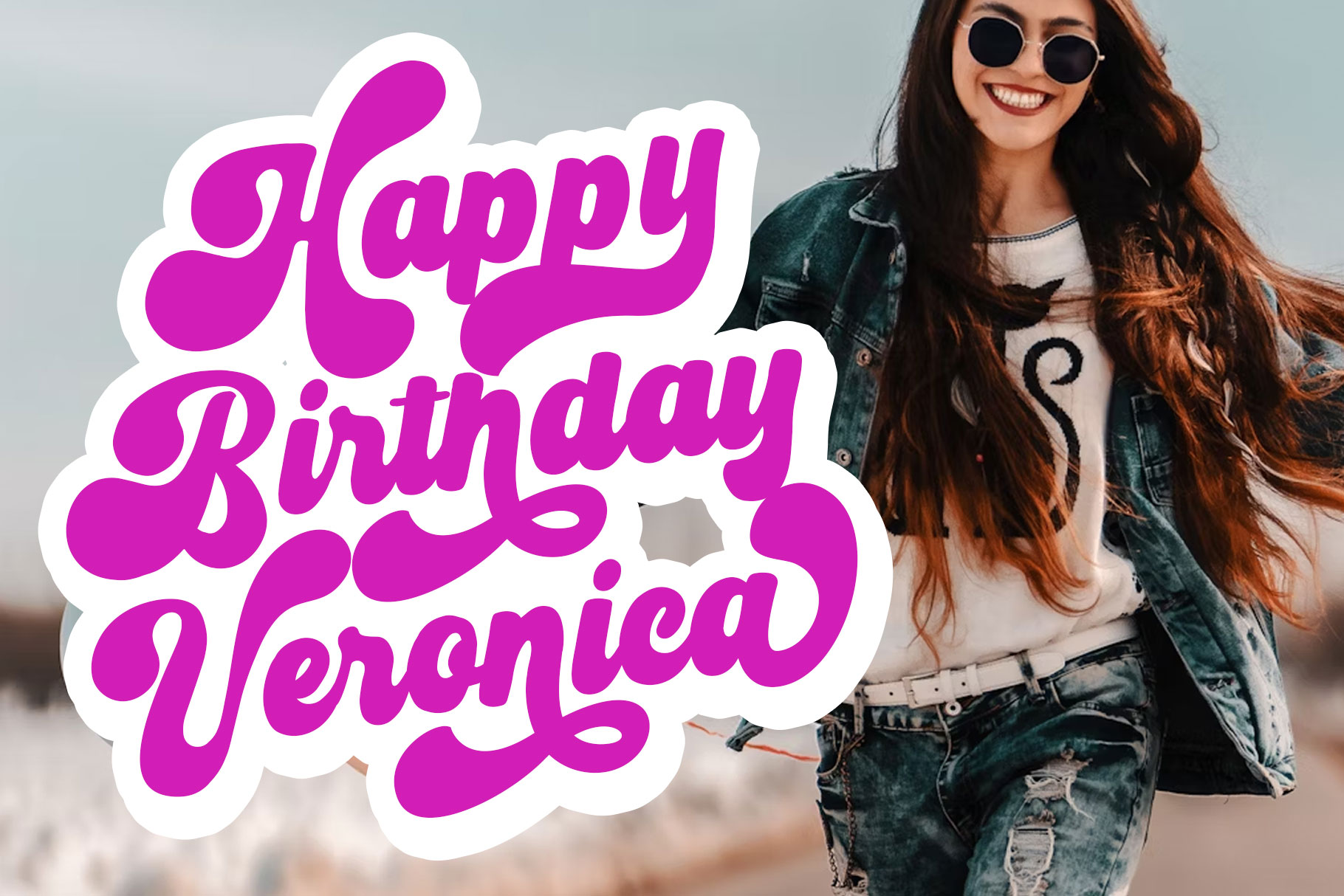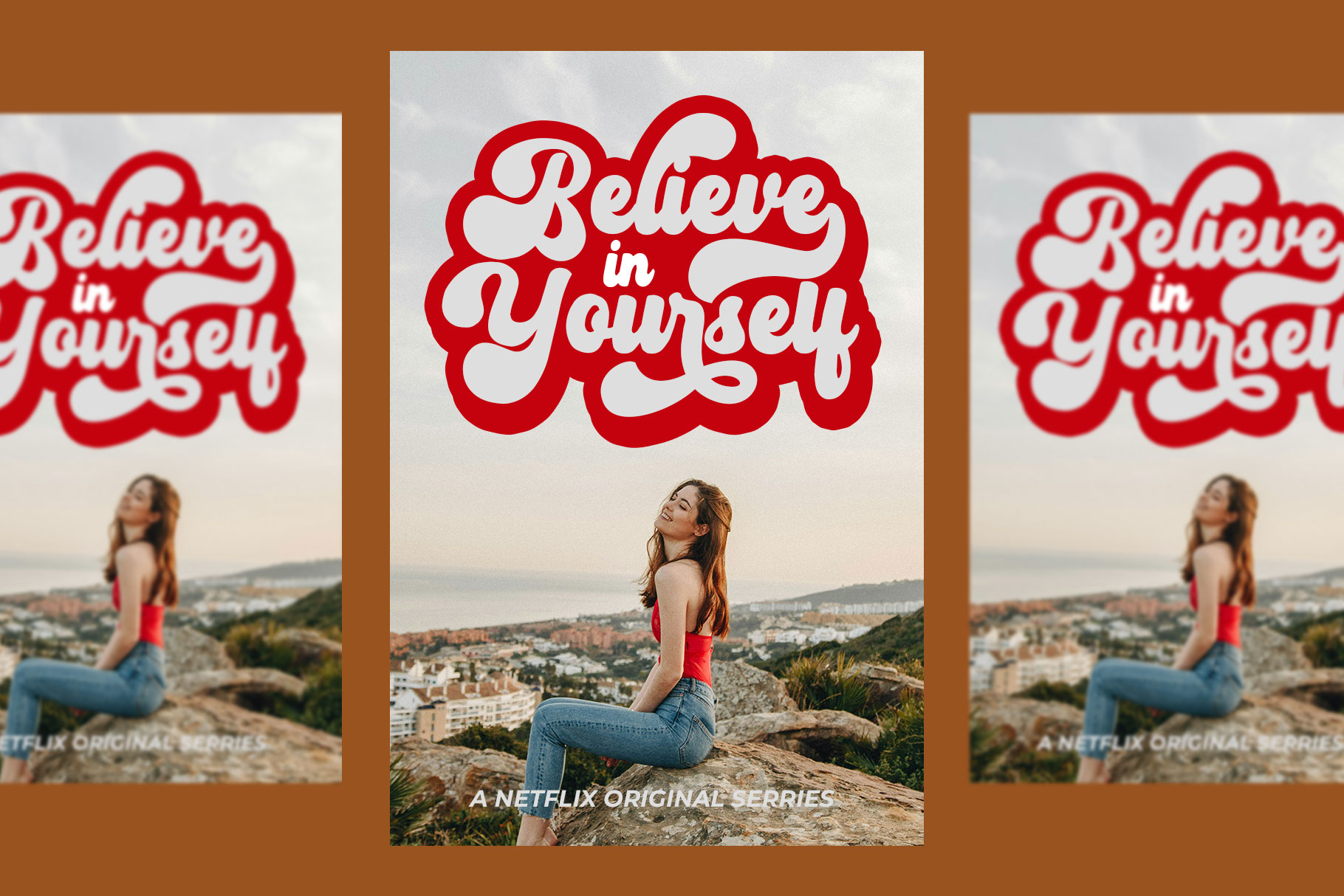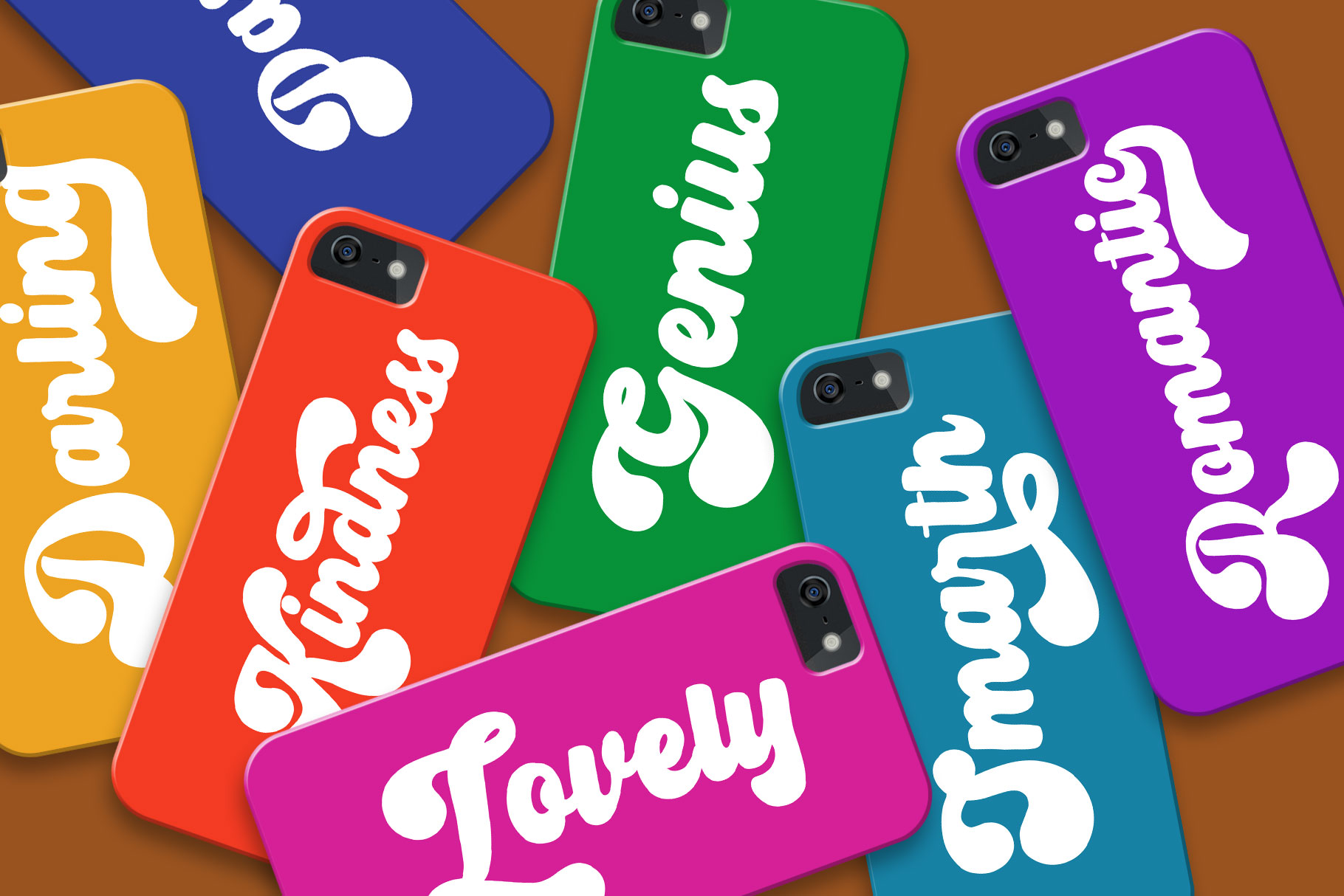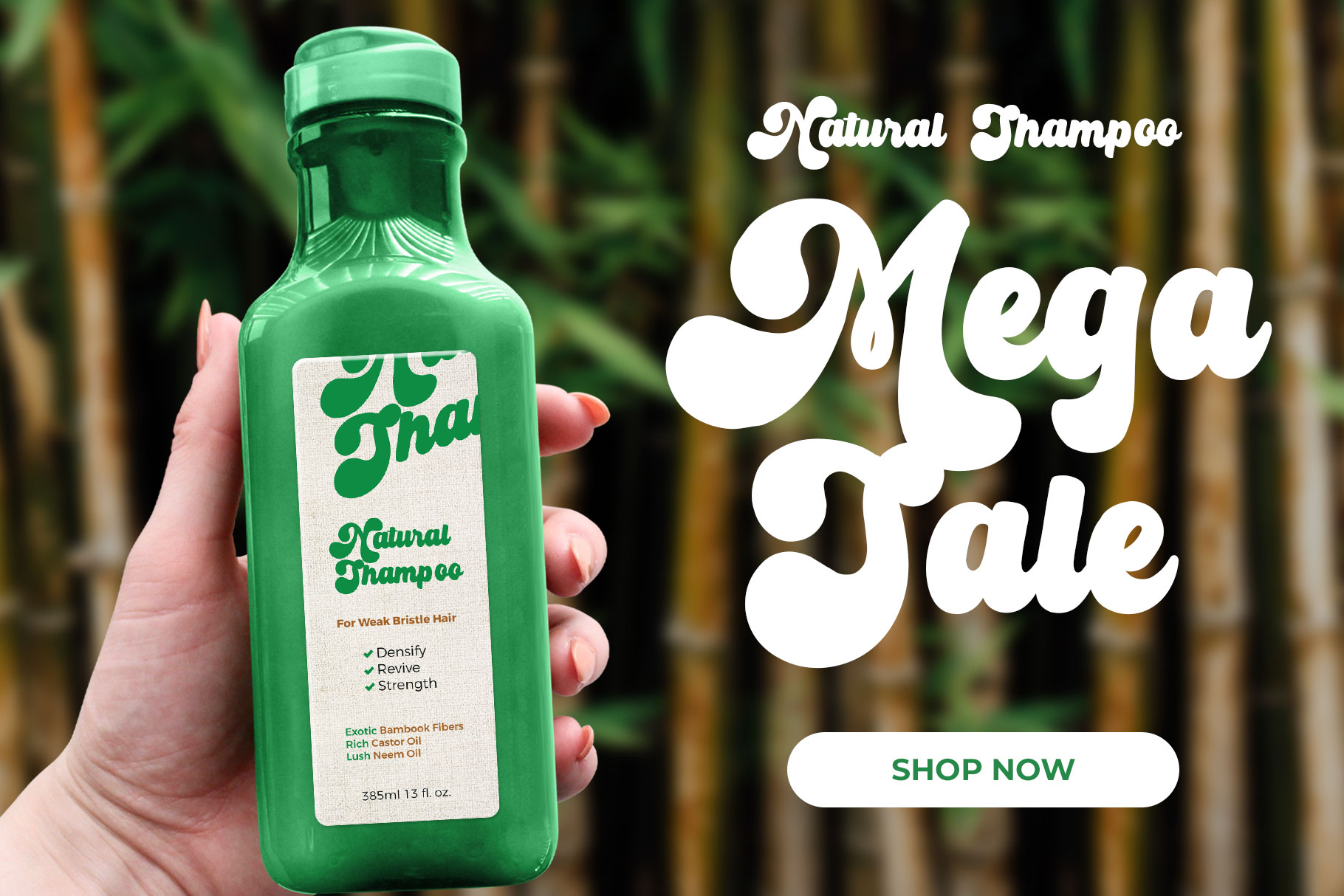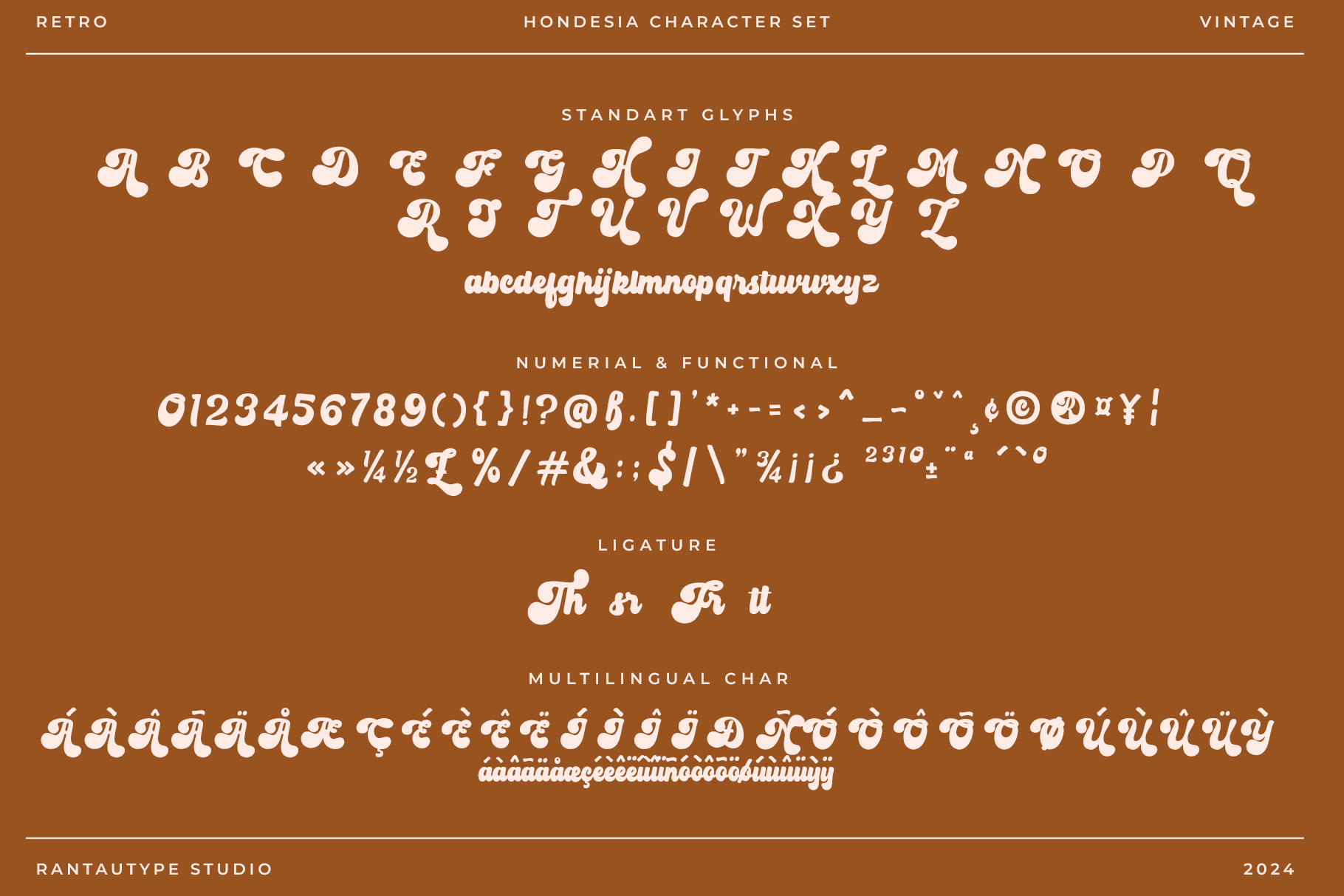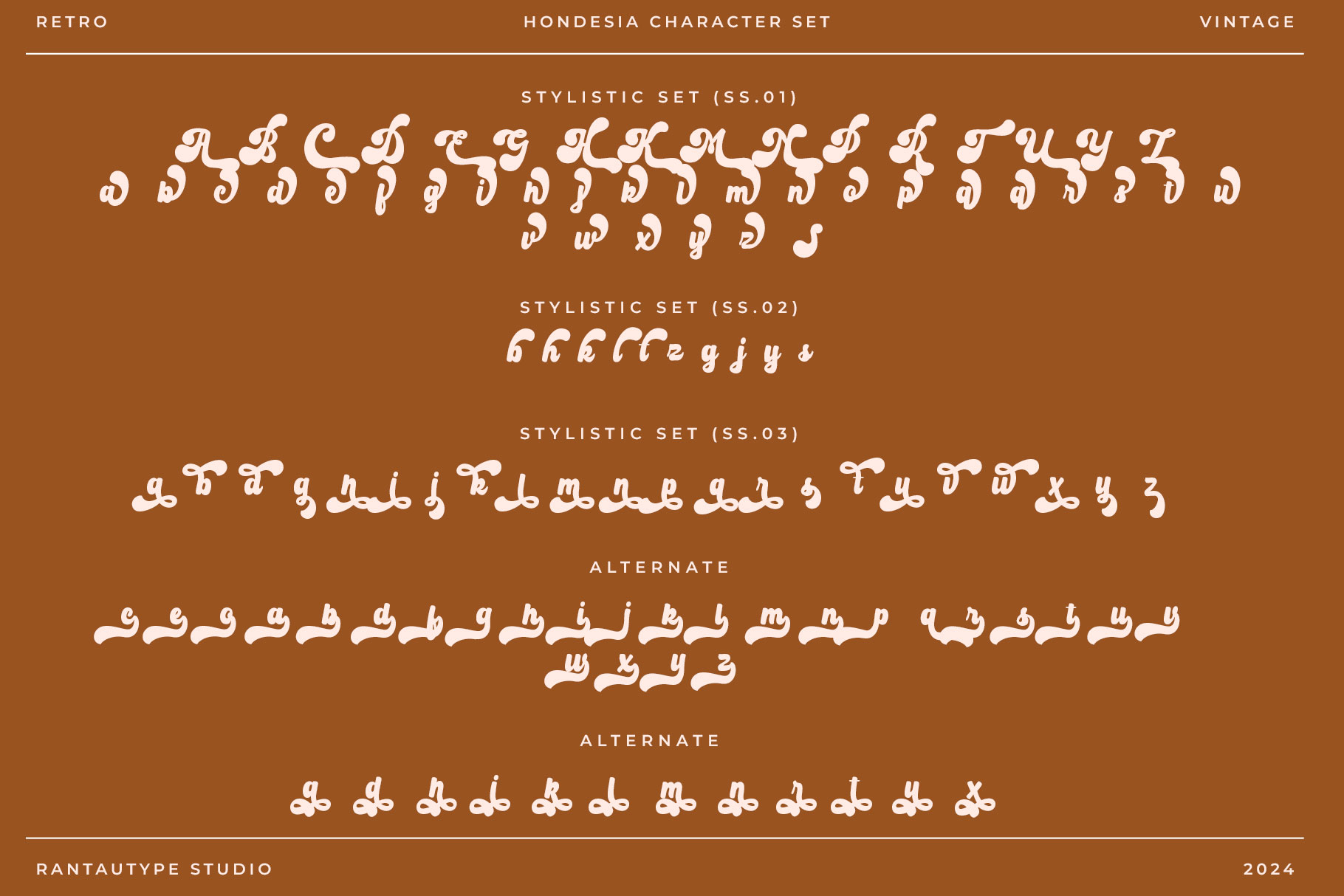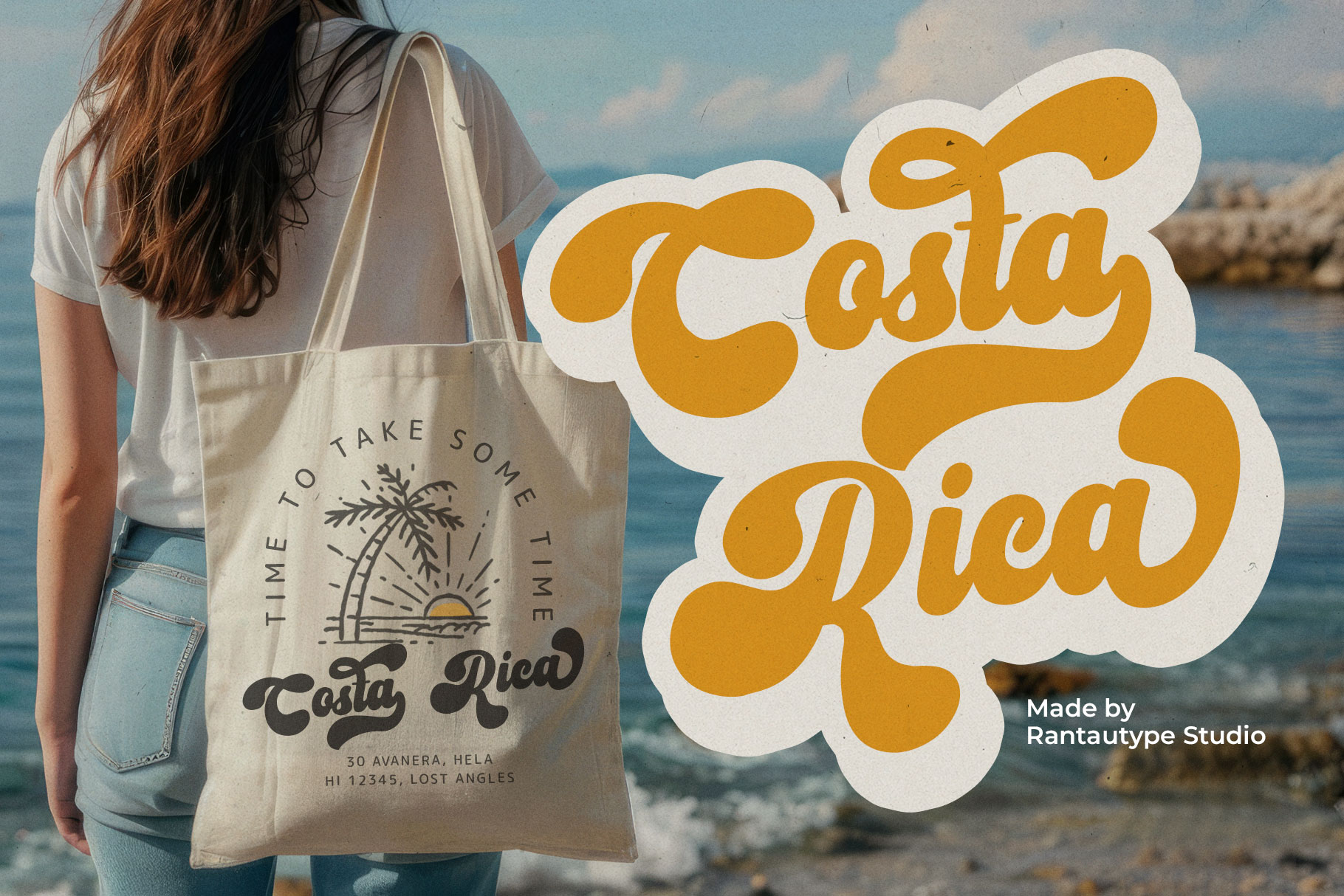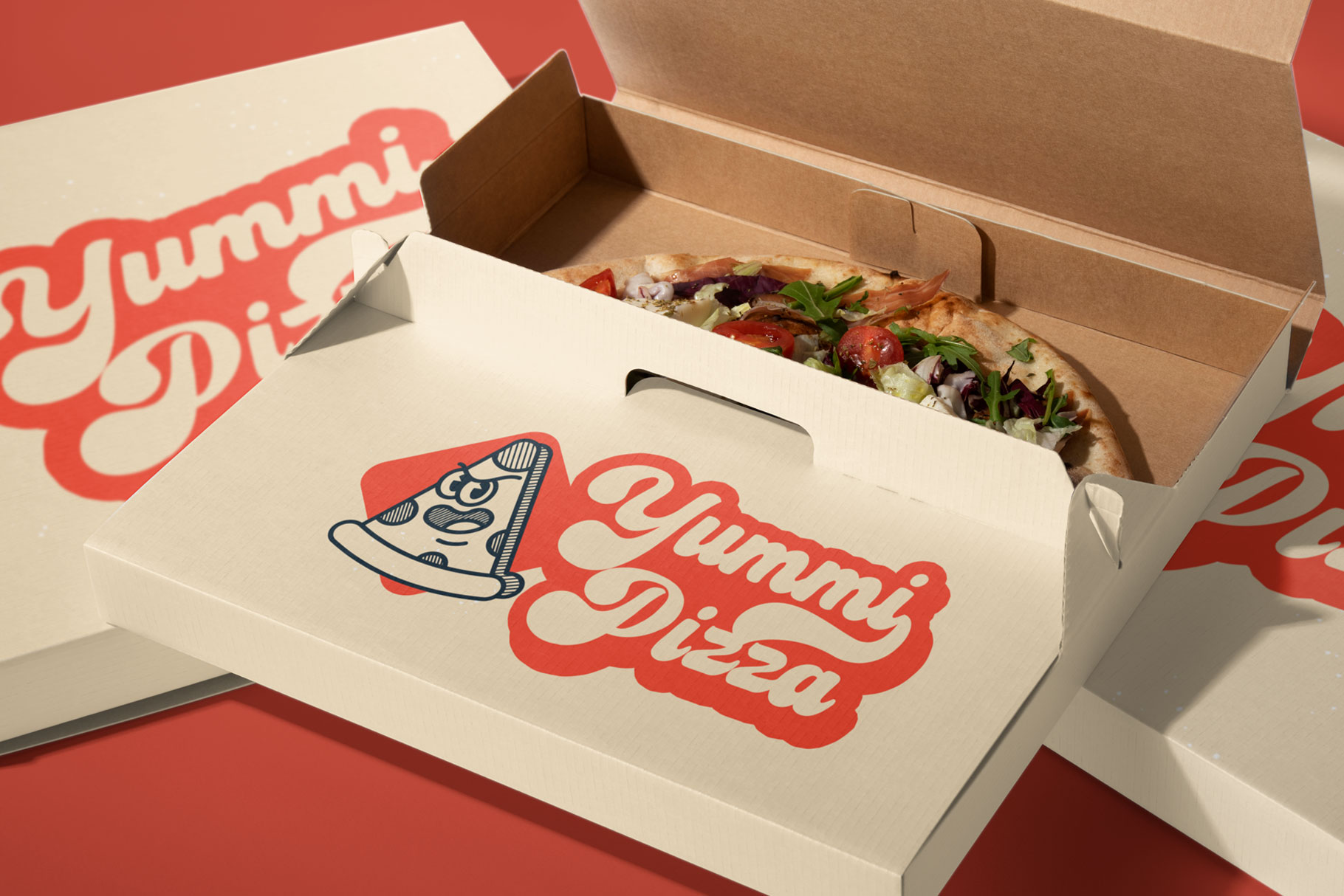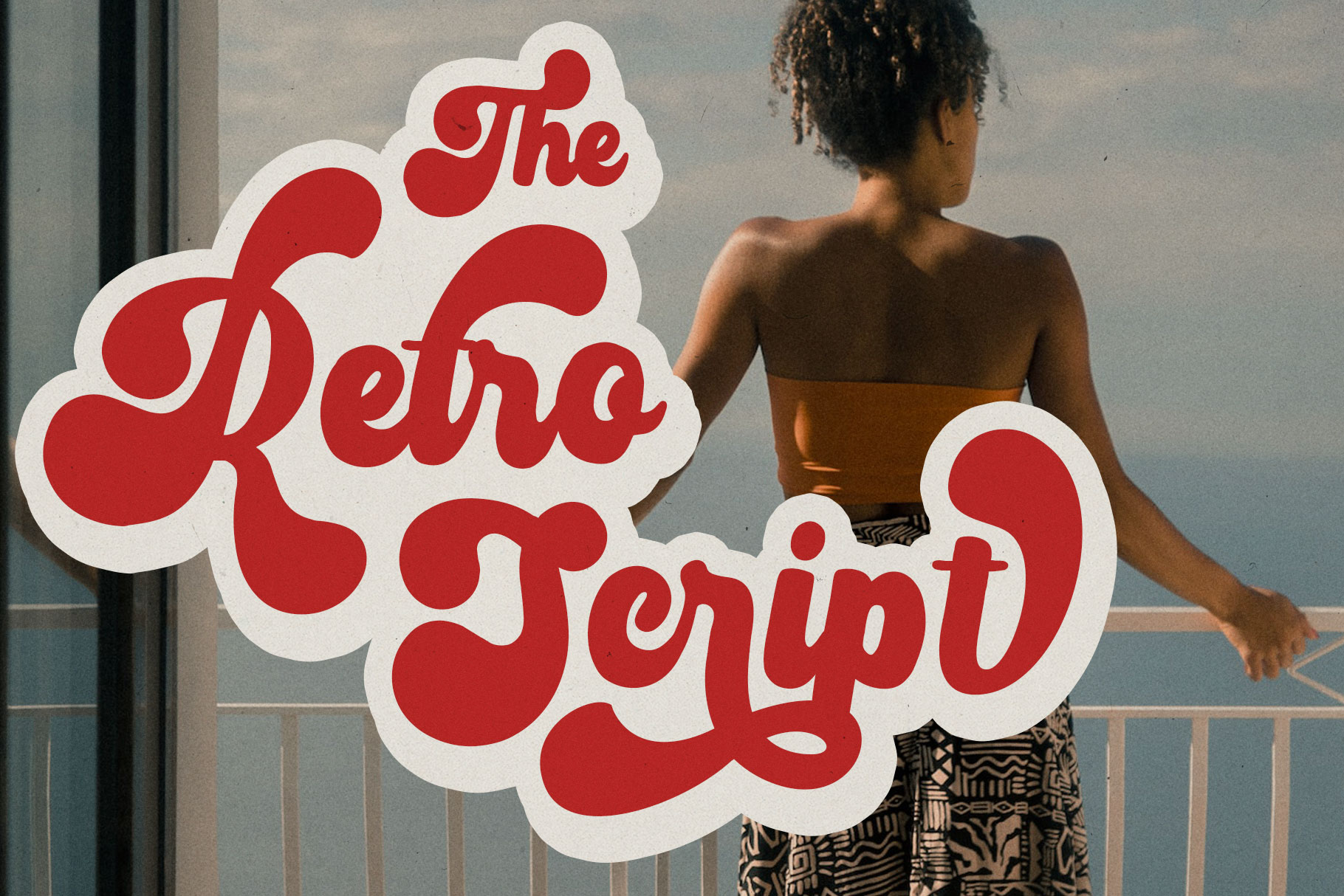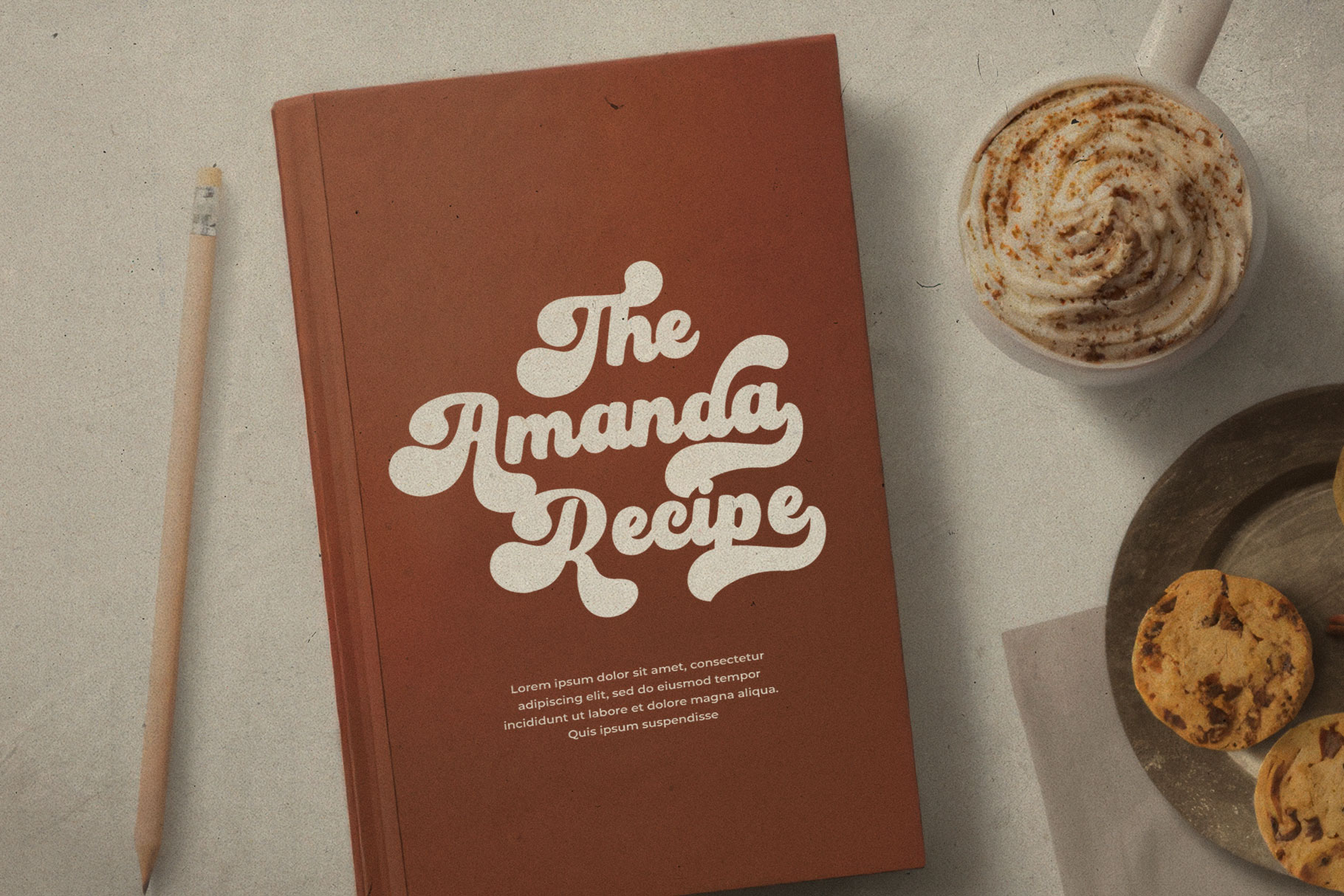
Hondesia Vintage Bold Script Font
Hondesia is vintage bold script font inspire by poster or movie in 60s, 70s, 80s. Hondesia bring you in nostalgic feeling about 60s, 70s, 80s make into vintage vibes.
Hondesia is perfectly choice for any creative endeavor, chic, lifestyle design such as logos, title, watermark on photography, cover, branding, display and magazine, wedding event, corporate brand, quotes, album cover, business card, business project and many other design project with retro or nostalgic taste.